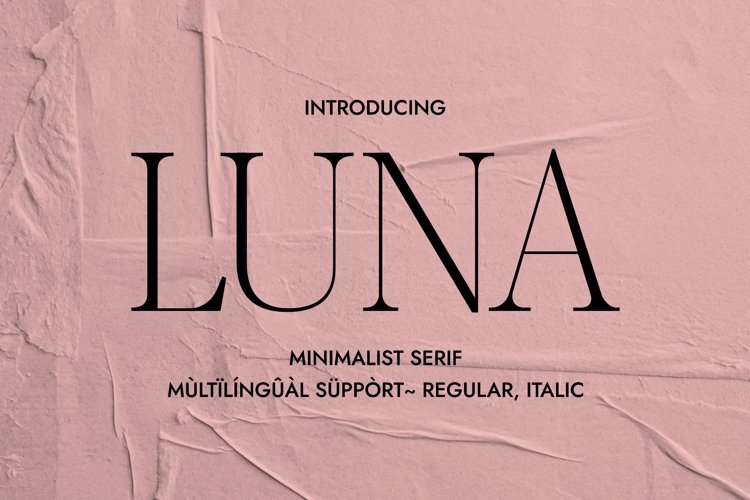
LUNA Font
๐จ Font Name: Luna by Minimalist Art Studio
๐จ Font Description: Luna is a minimalist serif with soft elegance and multilingual supportโperfect for editorial layouts, romantic branding, and poetic design.
โ Complete Latin set + multilingual diacritics
โ Alternates, stylistic sets & ligatures
โ Numbers, small caps, and extended punctuation
โ Bonus italics and family styles